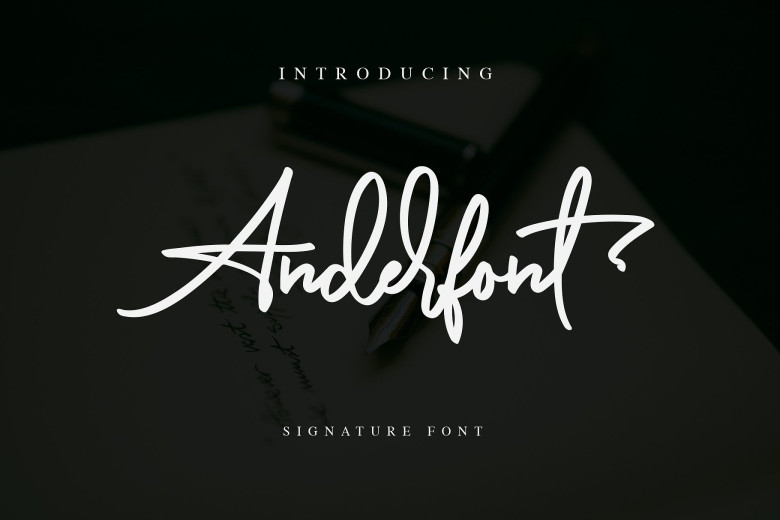
Anderfont Signature Font
This is a lovely hand written script, includes ligatures for a totally hand written look in your projects. Presenting Anderfont Font. Anderfont – a Signature Font is a handwritten script font with a simple and classy style, this font is great for your next creative projects such as watermark on photography, signature or signature logo design, quotes, album cover, business card, and many other design project. From business cards to photo watermarks, Anderfont is here to elevate your work to the highest level.